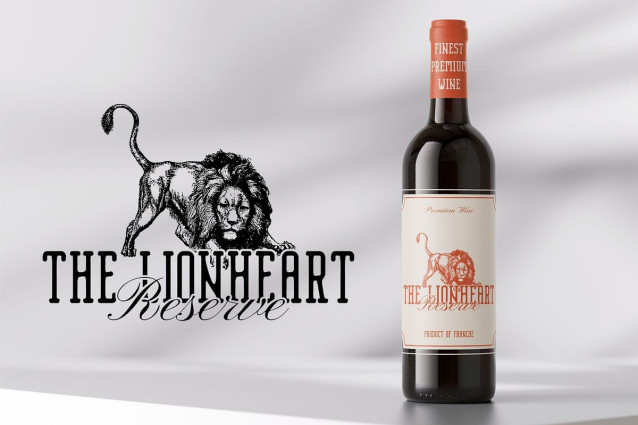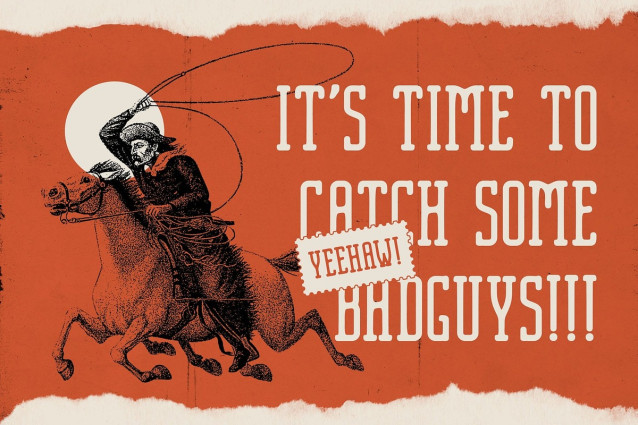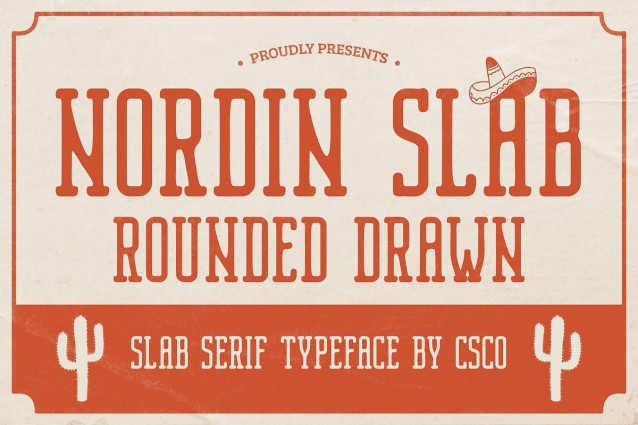
Nordin Slab Rounded Drawn Font
Nordin Slab Rounded Drawn Font – This is a modern slab serif font that combines a condensed structure with rounded edges and a distinctive drawn effect. This innovative blend creates a bold, strong presence while retaining a soft and approachable feel, perfect for designs requiring a unique balance of modernity and tradition.
Rounded Edges for a Softer Feel The rounded edges of this modern font introduce a gentler, more contemporary touch, making it ideal for projects that aim to combine strength with approachability. The roundness softens the boldness of the slab serif, adding versatility and warmth to its overall character.
Drawn Effect for Artistic Charm Layered with a hand-drawn effect, this font takes on an artistic, handmade vibe that adds an expressive, personal touch. Whether used for headlines, branding, or creative design projects, the drawn detail makes this font stand out as both refined and full of character.
Versatile for Branding and Editorial Design Ideal for branding, editorial, and creative design projects, this slab serif font is the perfect choice for designs that need to balance boldness with elegance. Its unique combination of modern slab serifs, rounded corners, and a hand-drawn feel creates a distinct font that is sure to elevate any visual identity.